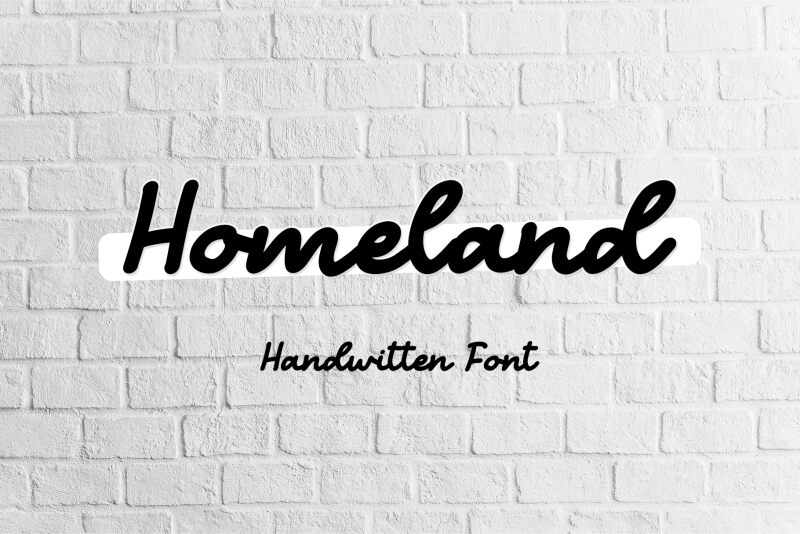
Homeland Italic Regular
Homeland Italic by Letterafa Studio captures the charm of handwritten style with a smooth, flowing character. The font exudes an effortless yet sophisticated demeanor, making it ideal for designs that require a personal touch. The slightly exaggerated curves and clean lines offer a perfect balance between readability and elegance.
This font is versatile for various applications—from branding, social media graphics, and product packaging to wedding invitations and other creative projects where individuality needs to shine. Homeland Italic promises to add a warm and genuine feel to your work, setting it apart with its distinct handwritten allure.